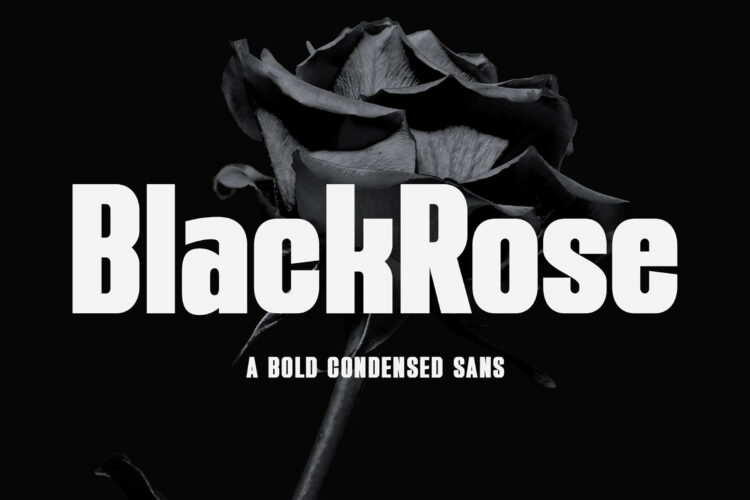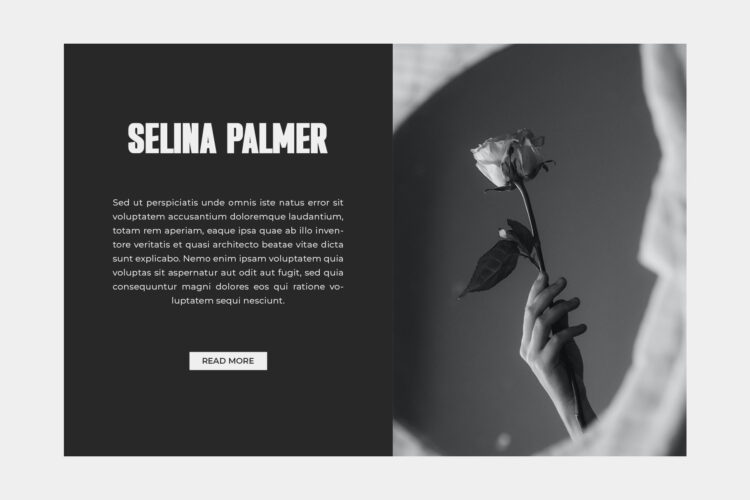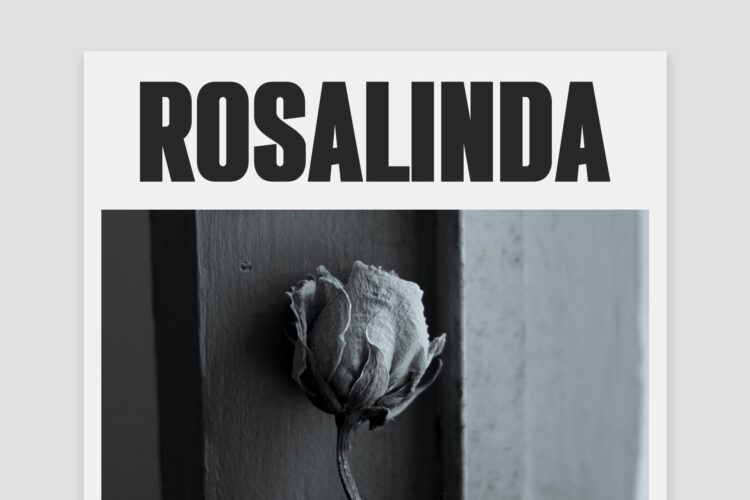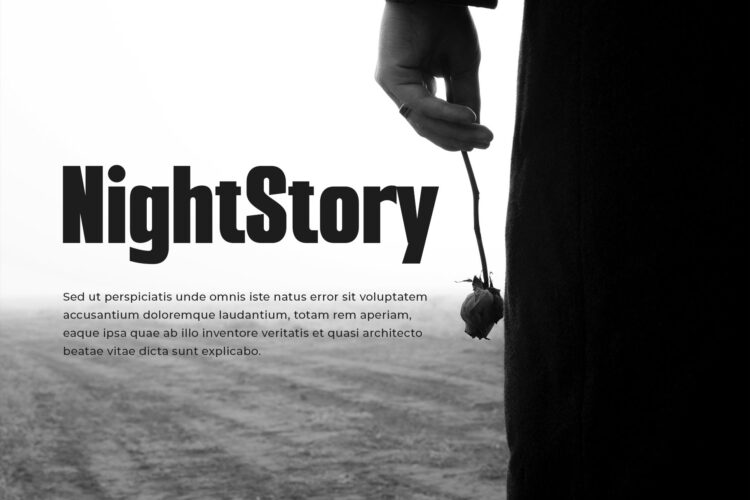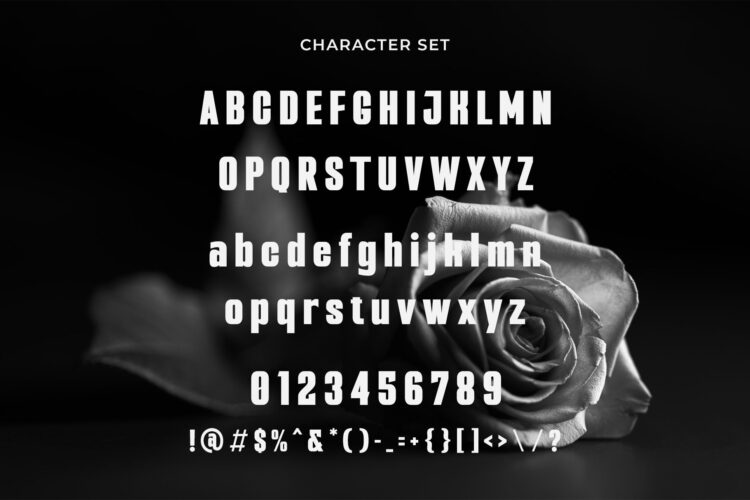
Introducing our new BlackRose, modern sans serif font with elegant style this is perfect for branding, logos, invitation, magazines, product packaging and more.
BlackRose – A Bold Condensed Sans